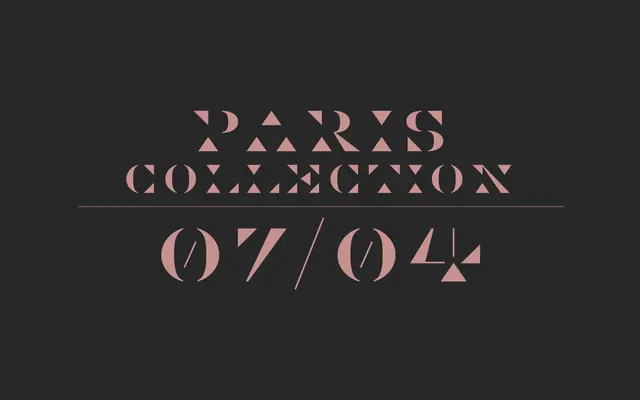
BD Bermuda
Type Different · 2007
An uppercase geometric serif from 2007 built around negative space and clean forms, aimed at fashion and cosmetics titling.
BD Bermuda is a single-weight, uppercase geometric serif conceived for headline use in fashion and cosmetics contexts. Its design plays with the strategic removal of shape to create an elegant, restrained aesthetic. Coverage spans Latin Extended-A, supporting a broad range of Western and Central European languages.
An uppercase-only geometric serif designed for titling, drawing on negative space and minimalist form rather than text use; best classified as display due to its decorative, fashion-oriented intent.